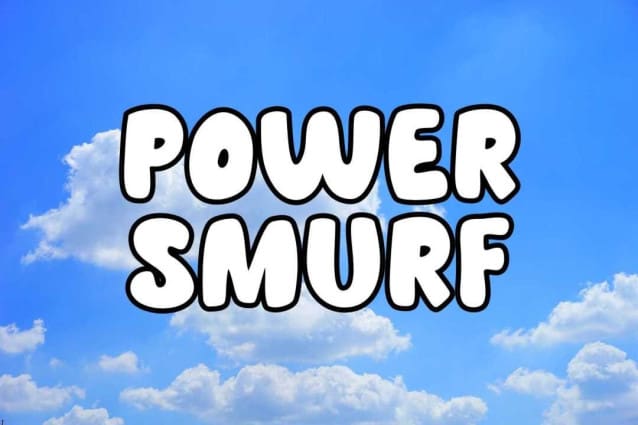
Power Smurf Font
Power Smurf Font, is a chunky, comic, and cartoon display font. With its neat and joyful personality, this font will enhance any project you wish to create!